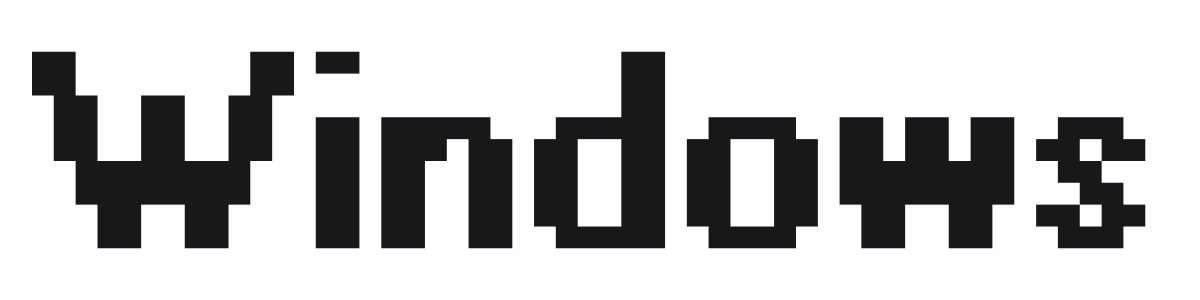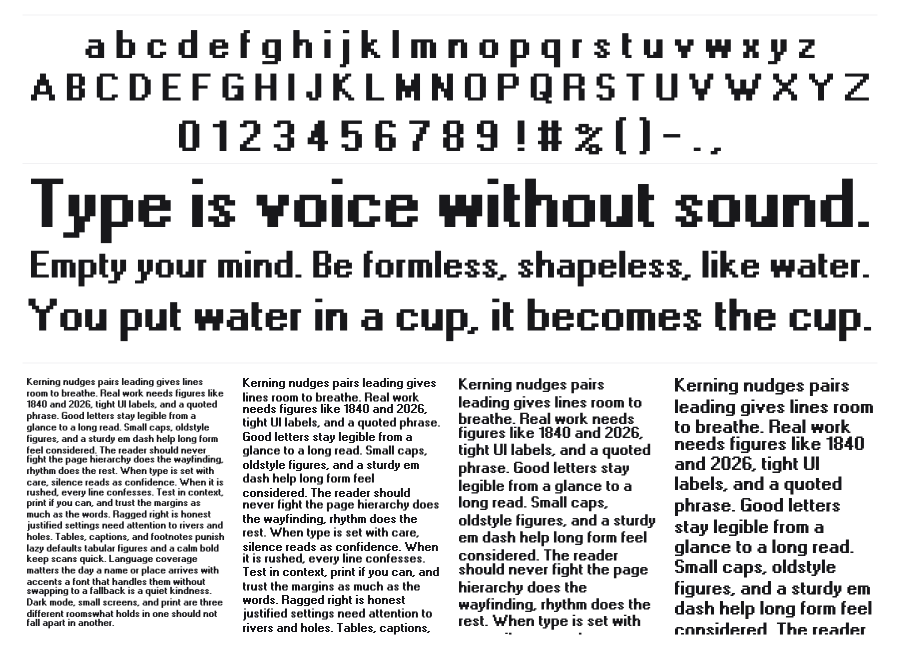
Windows
Windows is a bold bitmap font modeled closely after the classic MS Sans Serif found in early Windows operating systems. Built on a strict pixel grid with squared terminals and heavy uniform strokes, it captures the chunky, utilitarian character of 1990s desktop UI typography. Nostalgia is the whole point here, and it delivers.